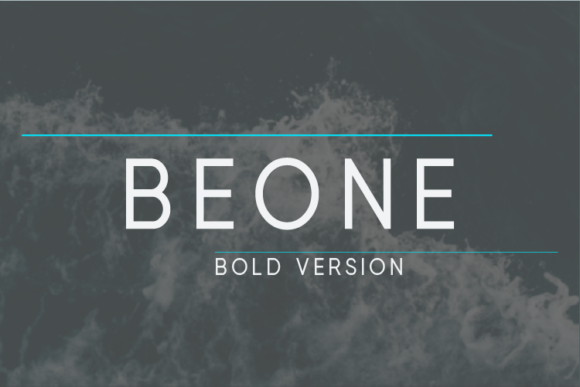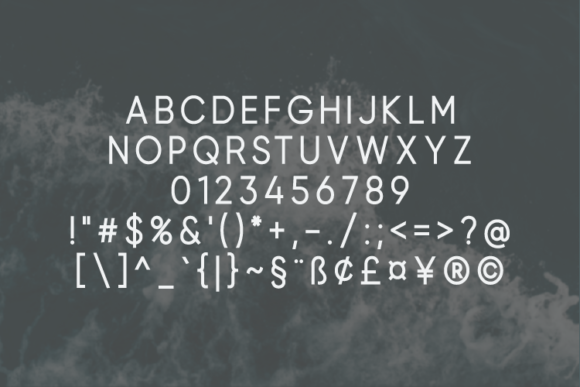
Beone Bold Font
About Beone Bold Font
Say hello to Beone Bold – a modern sans serif font inspired by trendy minimal branding, natural cosmetic packaging design and all kinds of creamy neutral shades.
Try this new font and give a professional look to your new projects.